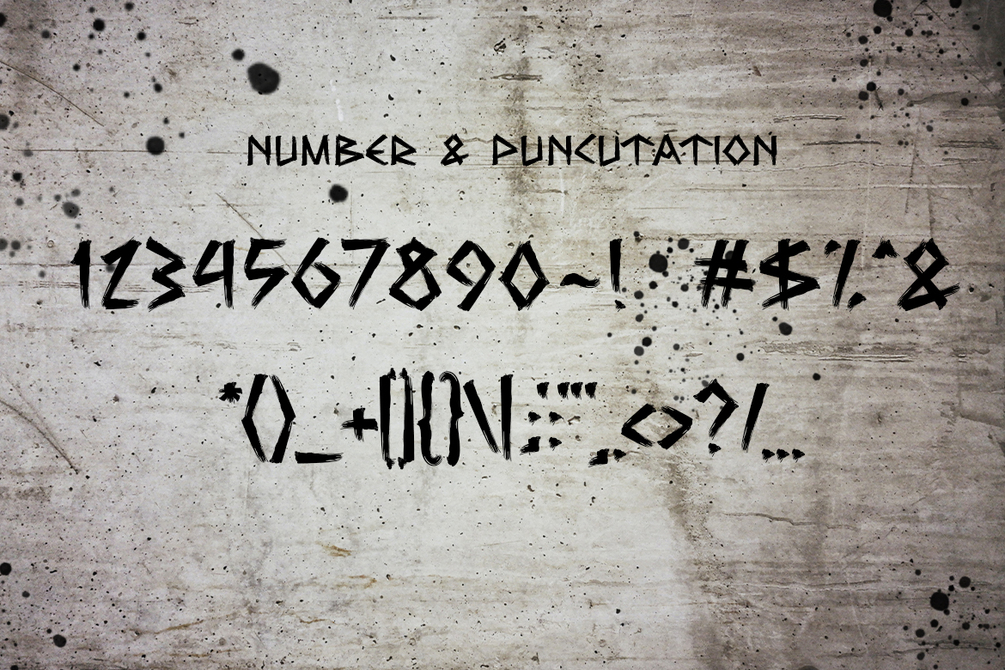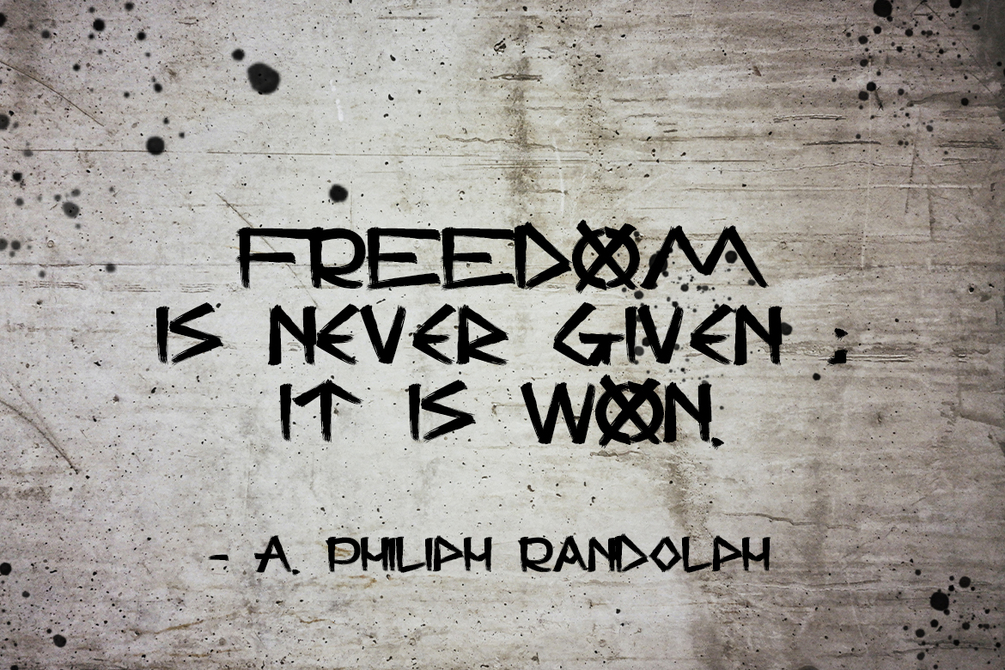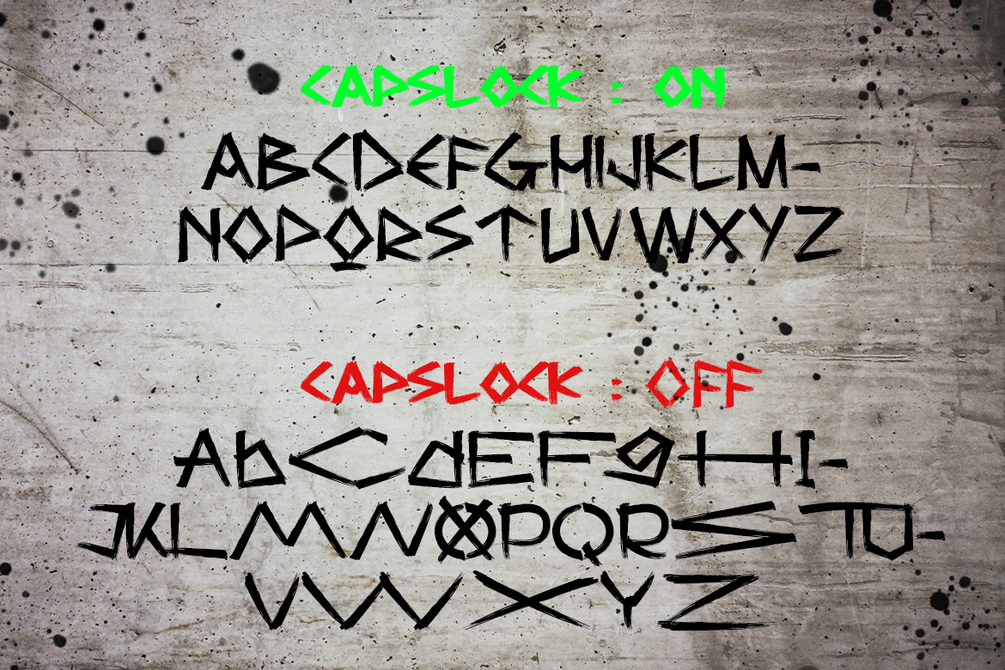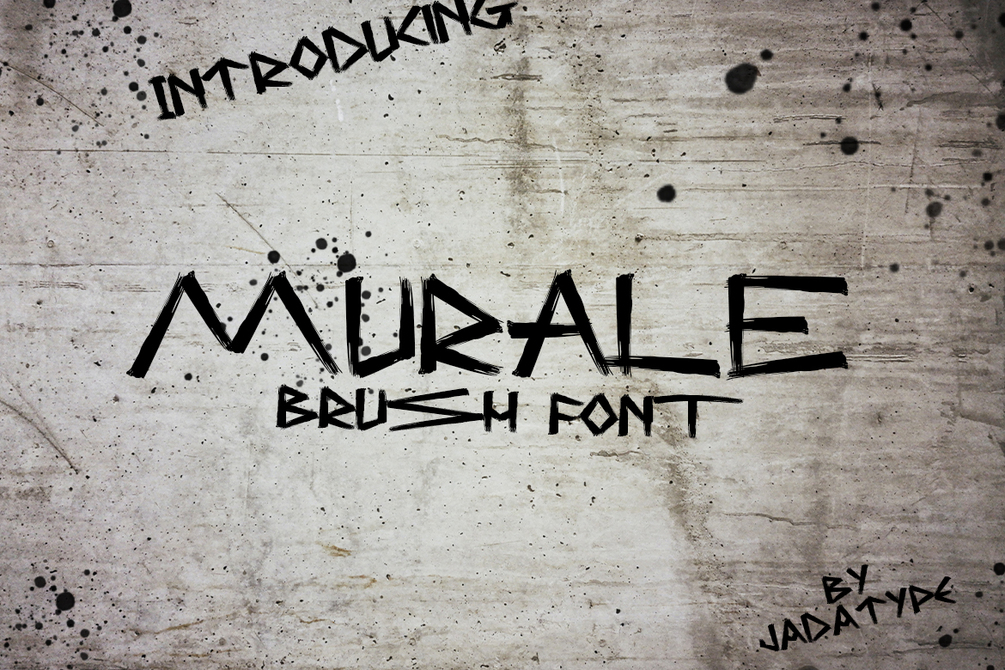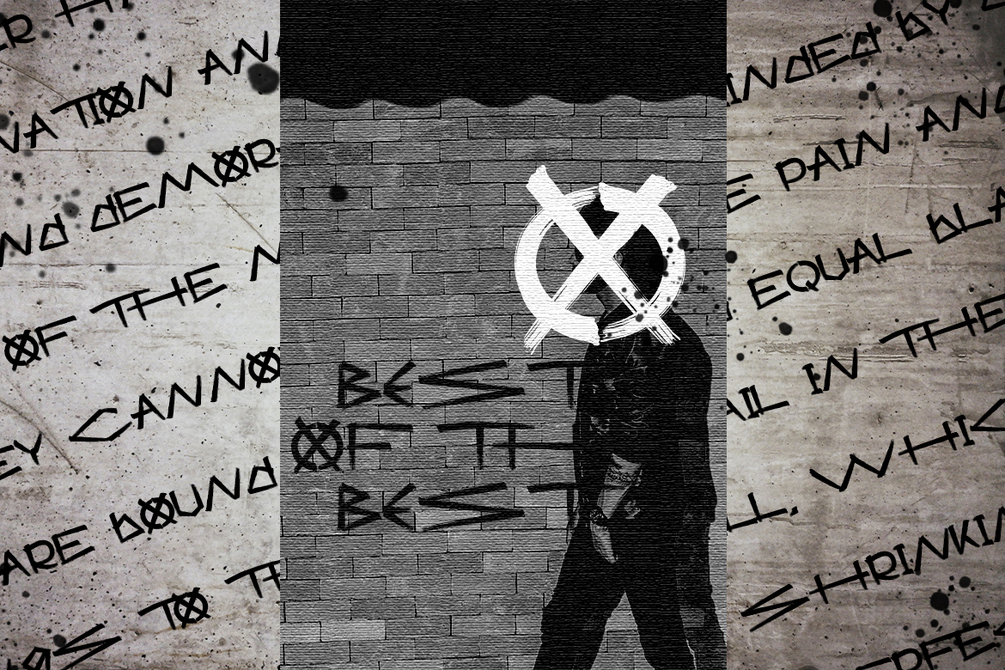
Murale Font
Murale is a display font with a rough brush style. suitable for branding, logotype, clothing brand, music cover, social media, products, and so on. contains standard English letters, numbers, ligatures, punctuation, and several accents that support multilingualism.